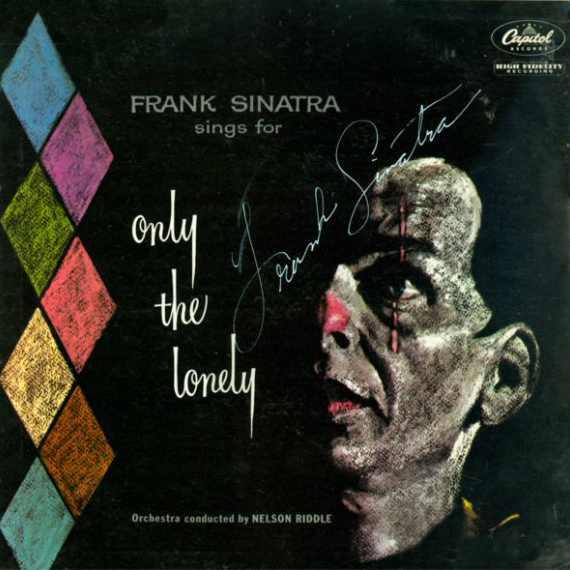
Font name: | Riddle Script |
Author: | Mario Arturo |
Inspired by the cover of Frank Sinatra and Nelson Riddle LP "Only the Lonely". Harold Lohner from HAROLDFONTS gave me a hand on this one about back in 2000. Thanks Harold. A few years later, it finally has uppercases, numbers and punctuations. The spiky letters are kept but under alternative letters on OTF. When I was creating the uppercases for the script version, a series of non-script letters kept popping up in my head. I could not help it, so now you have 2 for 1 deal. This font is free for non-commercial use and donationware for commercial use. Make a donation through PayPal my account there is: turoturom@yahoo.es. Please, donate in Euros if that is your local currency. |